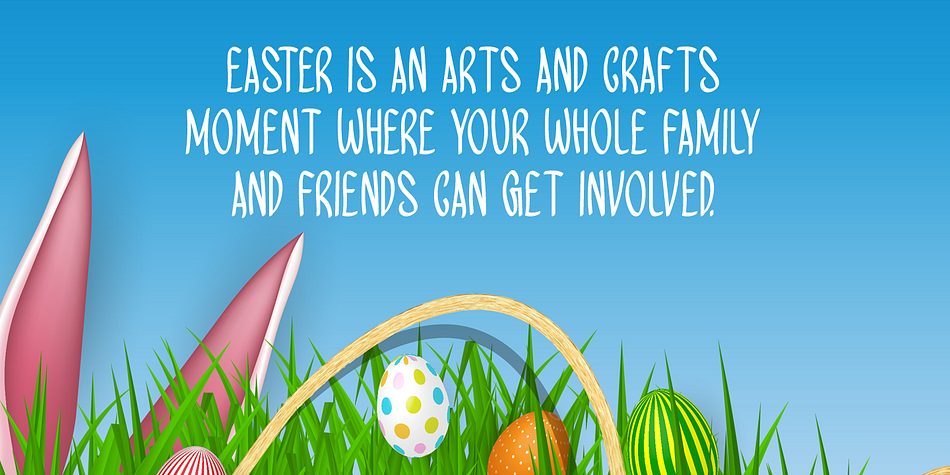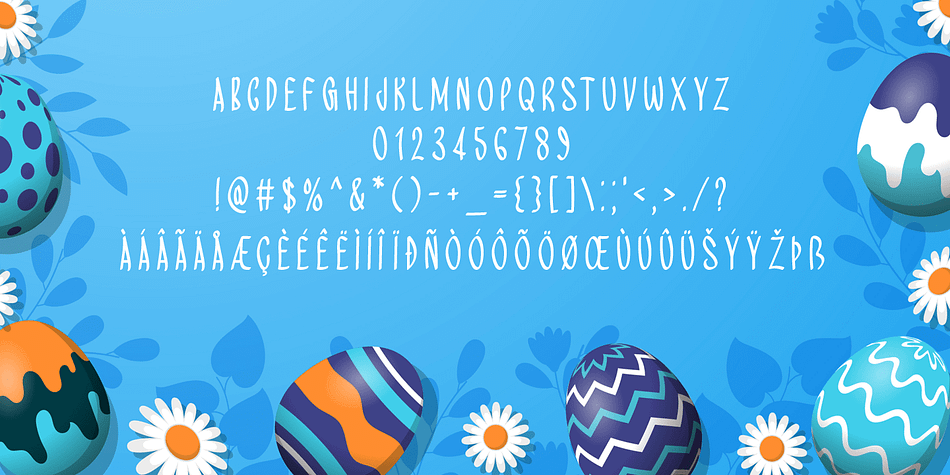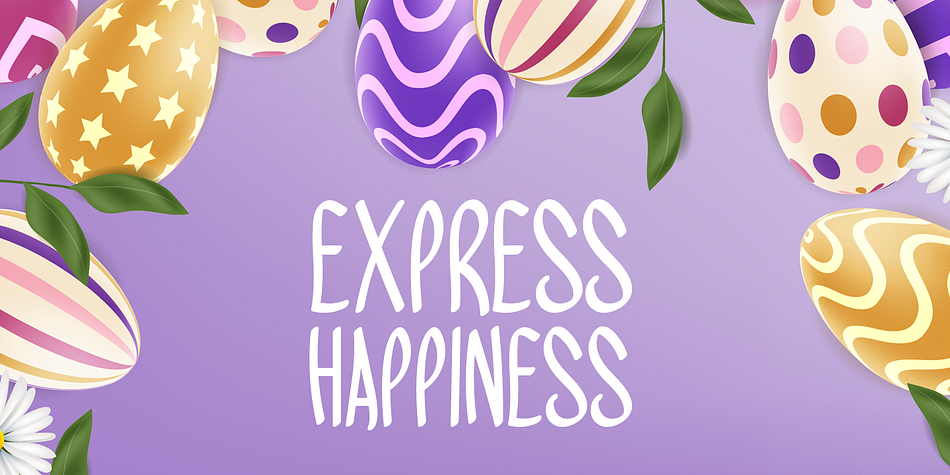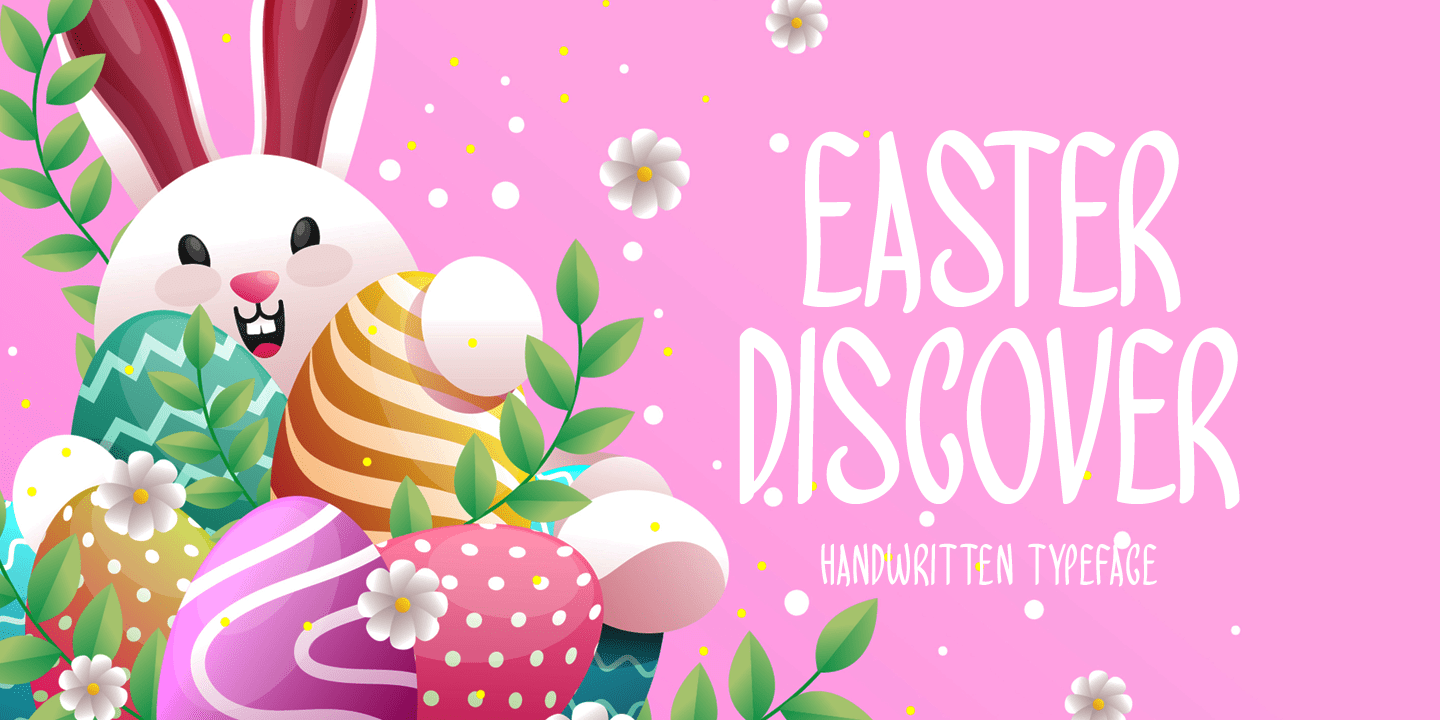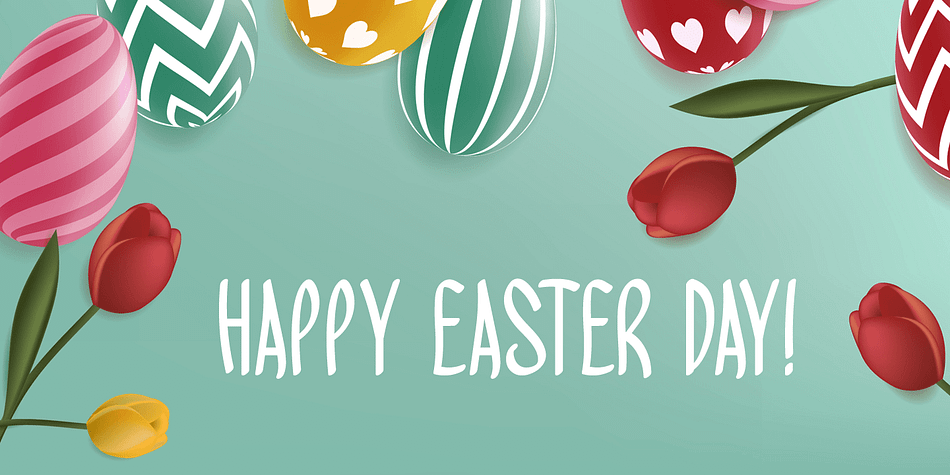
Designed by Md. Shohail Bhuiyan, Easter Discover is a hand display font family published by Seemly Fonts.
Easter Discover a joyful and casual handwritten font. Its natural and unique style makes it incredibly fitting to a large pool of designs. The only limit is your imagination!
Designer | Md. Shohail Bhuiyan |